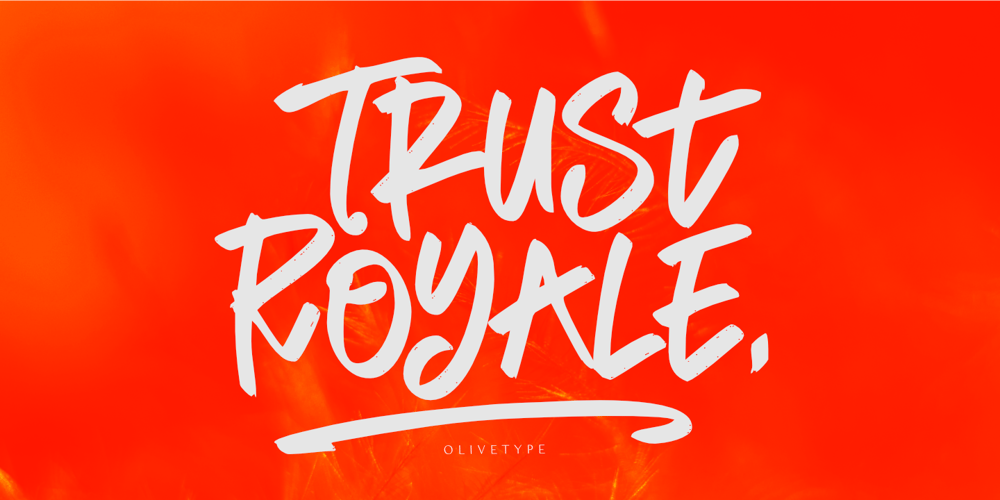
Trust Royale Font Family was designed by Aldy Sidik, Nurul Hidayani and published by Olivetype. Trust Royale contains 1 styles and family package options. Looking for a fresh and new font for your design project? We’ve got you covered with Trust Royale, the latest brush typeface craze on the scene. With its minimalistic, graffiti-style feel, this typeface is perfect for both cool and trendy designs. Not only is it inspired by hand-painted letters on walls, but it’s also available in multiple languages – giving you more freedom to express yourself.So what’s included : Basic Latin Uppercase and Lowercase Numbers, symbols, and punctuations Multilingual Support. Accented Characters : ÀÁÂÃÄÅÆÇÈÉÊËÌÍÎÏÑÒÓÔÕÖØŒŠÙÚÛÜŸÝŽàáâãäåæçèéêëìíîïñòóôõöøœšùúûüýÿžß PUA Encoded and fully accessible without additional design software Simple Installations, works on PC & Mac Download Trust Royale now and use it in your next project!